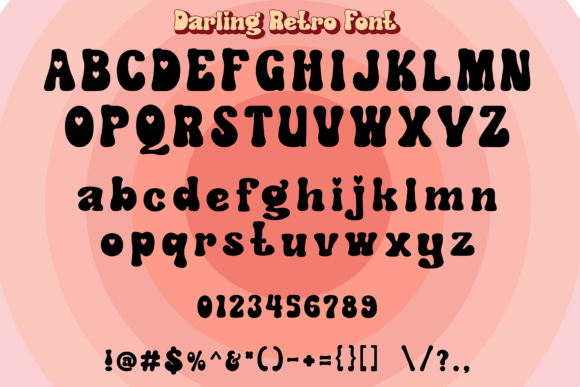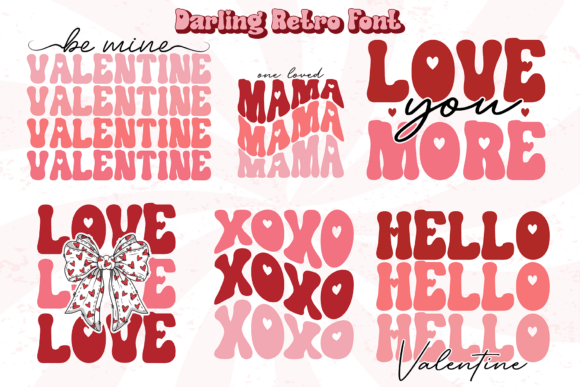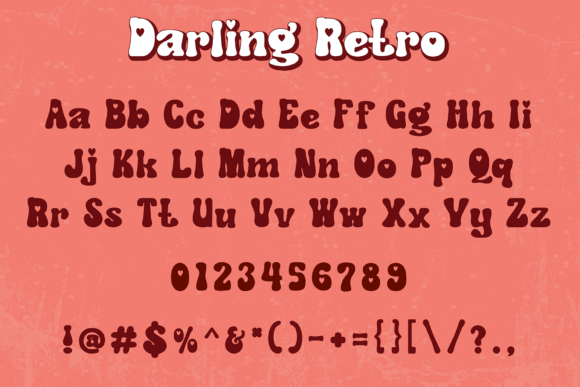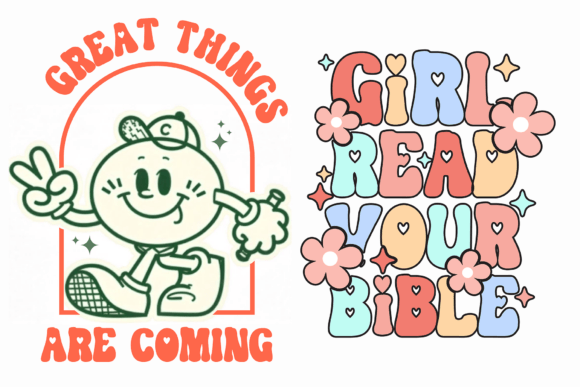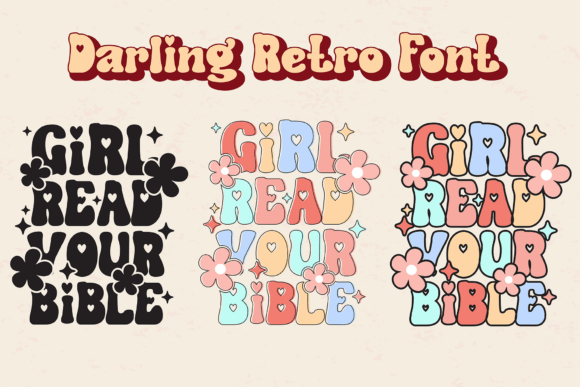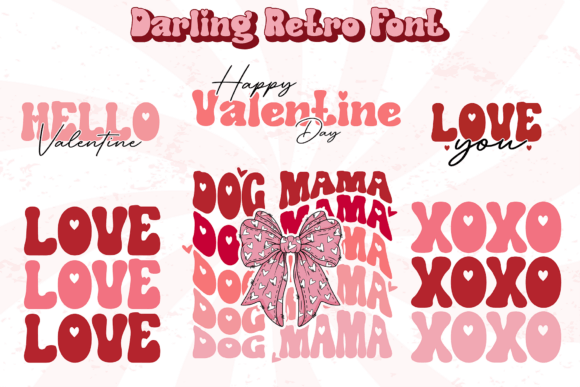
Introducing Darling Retro Font: The Perfect Addition to Your Design Collection
Are you looking for a font that adds a touch of retro charm to your designs? Look no further than Darling Retro Font! This display font is perfect for creating eye-catching designs that exude youthfulness and playfulness. With its unique retro style, Darling Retro Font is ideal for a wide range of design projects, from Valentine’s Day cards to online games, posters, and social media posts.
What Makes Darling Retro Font So Special?
Darling Retro Font is a one-of-a-kind display font that packs a great punch. Its retro style is reminiscent of the classic fonts from the past, but with a modern twist that makes it perfect for contemporary designs. The font features bold and playful letters that are sure to grab attention and leave a lasting impression.
Darling Retro Font is incredibly versatile and can be used for a wide range of design projects. Here are some ideas to get you started:
- Valentine’s Day cards and posters: Add a touch of retro charm to your Valentine’s Day designs with Darling Retro Font.
- Online games: Create eye-catching game titles and graphics with this fun and playful font.
- Love shirts and apparel: Design unique and stylish t-shirts, hoodies, and other apparel with Darling Retro Font.
- Posters and flyers: Create bold and attention-grabbing posters and flyers with this retro-style font.
- Social media posts: Add a touch of youthfulness to your social media posts with Darling Retro Font.
Retro Love: A Special Variation of Darling Retro Font
For those who want to take their designs to the next level, Darling Retro Font also comes with a special variation called Retro Love. This version features letters adorned with hearts, adding an extra touch of romance and whimsy to your designs. Perfect for Valentine’s Day, anniversaries, or any other occasion that requires a little extra love.
Perfect for Crafters and Designers
Darling Retro Font is not just perfect for designers, but also for crafters who love to create unique and personalized items. Here are some ways you can use Darling Retro Font for your crafting projects:
- Sublimation: Use Darling Retro Font to create stunning sublimation designs for mugs, tumblers, and other products.
- SVGs: Cut out letters and shapes with Darling Retro Font to create custom vinyl decals, iron-on designs, and more.
- Crafts: Use Darling Retro Font to create handmade cards, gift tags, and other paper crafts.
- Logos and branding: Use Darling Retro Font to create unique and memorable logos and branding materials.
- Cards and quotes: Design beautiful and inspiring cards and quotes with Darling Retro Font.
- Ornaments and prints: Create stunning ornaments and prints with Darling Retro Font to decorate your home or give as gifts.
Why Choose Darling Retro Font?
So why choose Darling Retro Font over other fonts? Here are just a few reasons:
- Unique and eye-catching: Darling Retro Font is a one-of-a-kind font that is sure to grab attention.
- Versatile: Use Darling Retro Font for a wide range of design projects, from digital designs to crafting projects.
- High-quality: Darling Retro Font is a high-quality font that is designed to produce stunning results.
In conclusion, Darling Retro Font is a must-have for any designer or crafter looking to add a touch of retro charm to their designs. With its unique style, versatility, and ease of use, Darling Retro Font is the perfect addition to your design collection. So why wait? Get Darling Retro Font today and start creating stunning designs that are sure to impress!
| Author | TINY GRAPHIX |